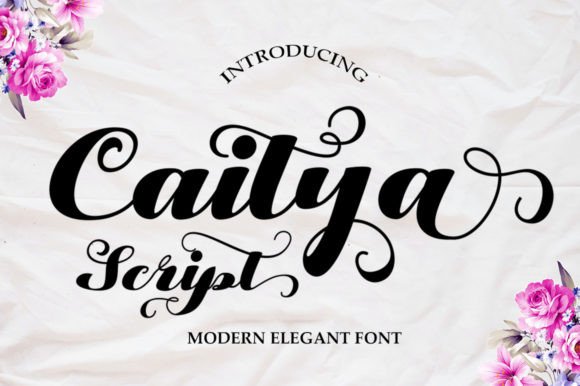
Embrace the allure of Caitya Script, a font that captivates with its bold strokes and elegant curves. Inspired by the timeless beauty of handwritten calligraphy, this script font is a masterpiece that will transform your creative projects into works of art.
Unleash your inner artist and let your imagination soar as you explore the endless possibilities of Caitya Script. Its graceful lines and organic flow lend a touch of sophistication and charm to any design, making it the perfect choice for wedding invitations, logos, branding, social media posts, and more.
With Caitya Script, you'll have the power to create designs that resonate with your audience on a deeper level. Its enchanting characters possess a captivating allure that draws the eye and leaves a lasting impression. Whether you're aiming for a classic, vintage aesthetic or a modern, contemporary look, Caitya Script has the versatility to adapt and shine.
Embrace the beauty of handwritten elegance with Caitya Script, and unlock a world of creative possibilities. It's the perfect addition to your font collection, waiting to elevate your designs and make your creative visions come to life.
Immerse yourself in the beauty of Caitya Script and embark on a journey of artistic expression. Experience the joy of creating designs that captivate, inspire, and leave an unforgettable mark.